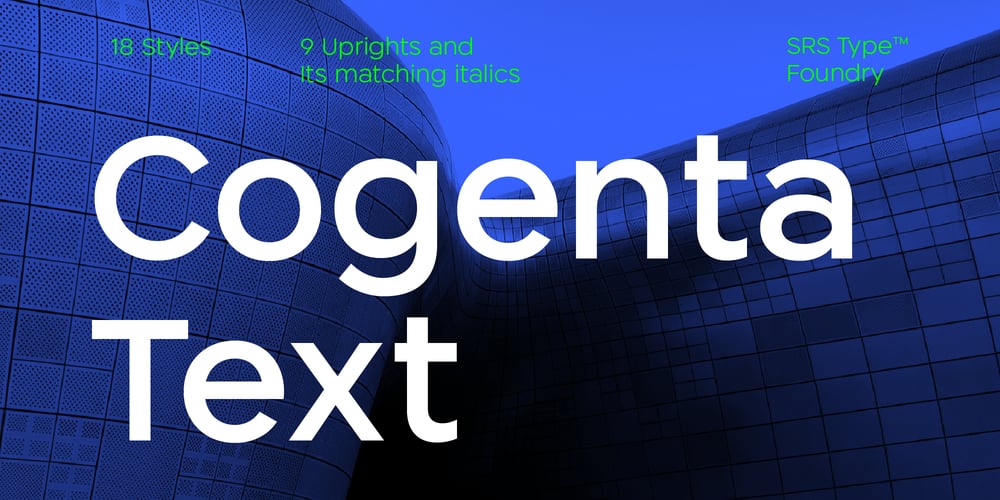
Cogenta Text
Cogenta Text font
Cogenta Text Font Family was designed by Soung-ryung Shin and published by SRS Type. Cogenta Text contains 18 styles and family package options. Cogenta Text is a geometric sans-serif typefaces. It showcases reduced contrast and a more neutral appearance compared to the lowercase joint of Cogenta. Its low cap height makes it an ideal choice for mobile and web applications. Precise kerning enhances readability, ensuring a satisfying user experience. Cogenta Text effortlessly complements diverse design applications, including logos, branding, posters, editorial design, websites, and more, consistently delivering exceptional quality results.